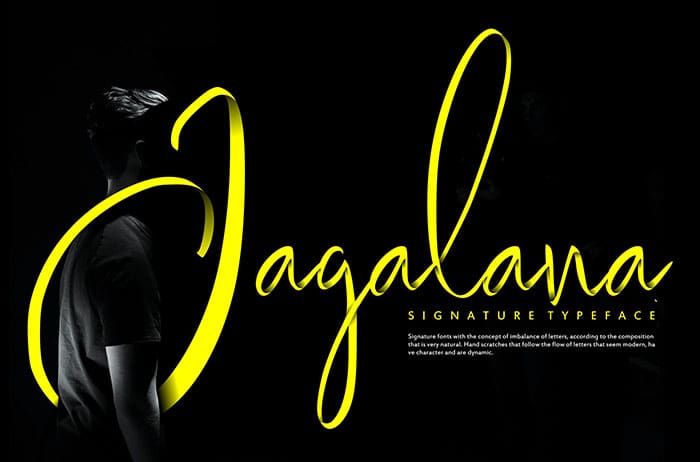
Free Jagalana Signature Font
Jagalana Signature Font
Free Jagalana signature font is the perfect font to add an authentic and sophisticated spark to your next design project. Thanks to Vunira Studio for sharing this font! Take a look at this portfolio for more of his stunning fonts.